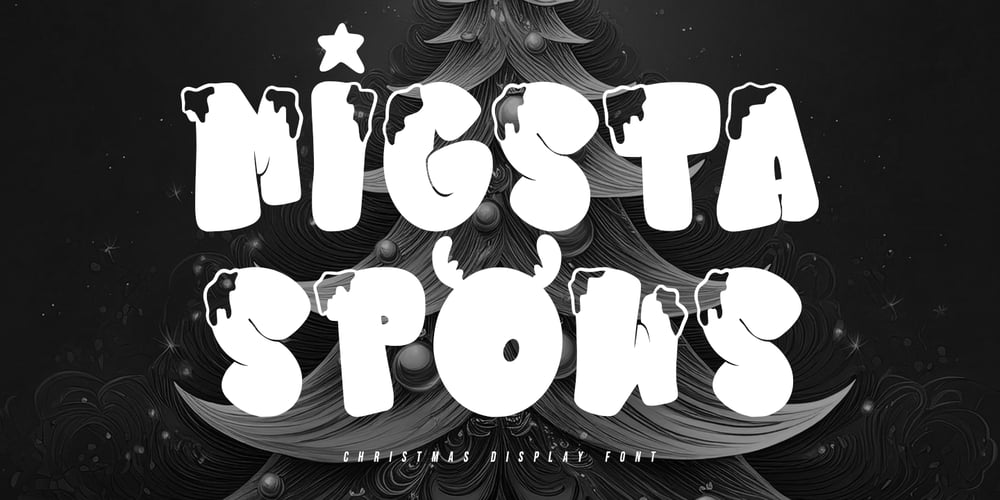
MC Migsta Spows
MC Migsta Spows font
MC Migsta Spows Font Family was designed by Gilang Maulana and published by Maulana Creative. MC Migsta Spows contains 1 styles and family package options. Migsta Spows is a christmas display font. With bold contrast stroke, modern character with alternate. To give you an extra creative work. Migsta Spows font support multilingual language. This font is good for logo design, Social media, Movie Titles, Books Titles, a short text even a long text letter and good for your secondary text font with sans or serif. Make a stunning work with Migsta Spows font.Cheers,Maulana Creative